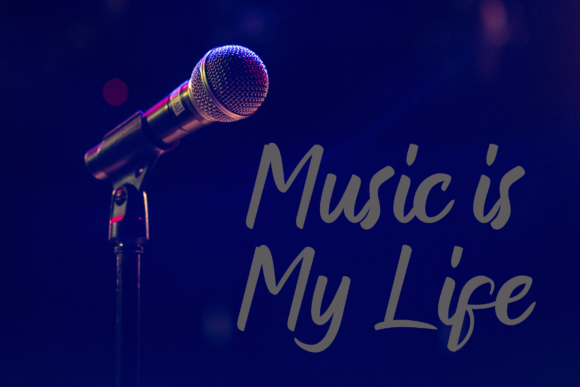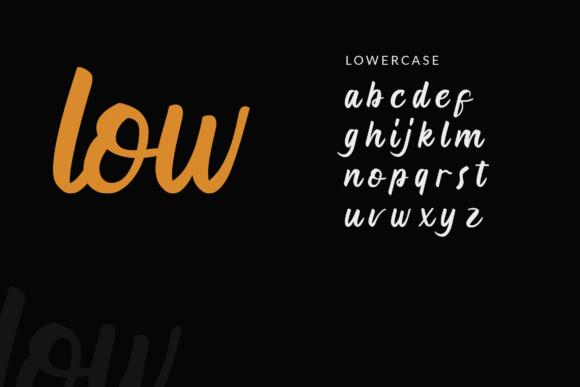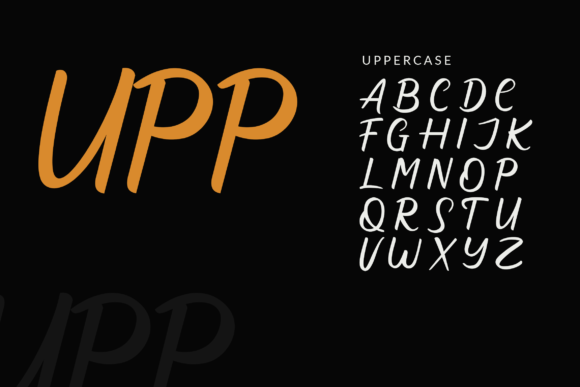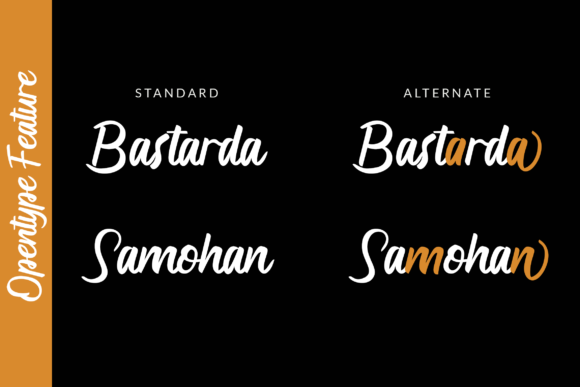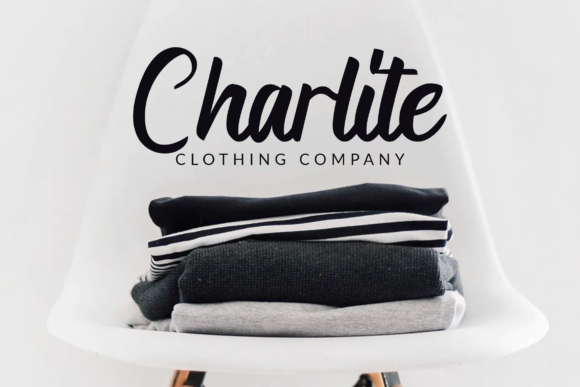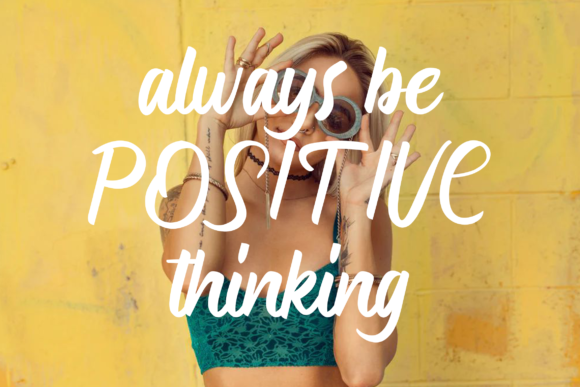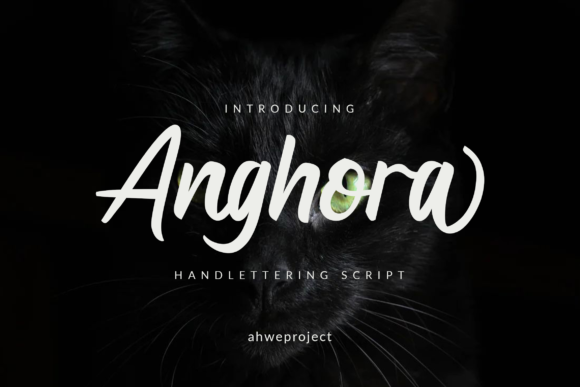
The Anghora Font: A Classy and Fancy Dry Brush Script with a Personal Feel
Have you ever been in the middle of a design project, and suddenly, you just can’t seem to find the right font? I recall a particularly frustrating experience when a client asked for a “classy and fancy” script font for their luxury brand’s packaging. I scoured the internet, tried out dozens of fonts, but nothing seemed quite right. That was until I stumbled upon the Anghora font. Its unique charm and personal feel instantly won me over, and I’ve been hooked ever since.
An Honest Review of Anghora Font
What I Love About Anghora Font
- ✨ Unique dry brush script style that’s both classy and fancy
- 💫 Beautifully crafted with a personal feel that adds a touch of elegance to any design
- 🎨 Versatile and can be used for a wide range of design projects, from packaging to branding and advertising
While Anghora font is an excellent choice for many design projects, there are a few quirks to be aware of:
- 🤔 Some users may find the font a bit too ornate for very minimalist designs
- ⚠️ Not ideal for body text, as it’s best suited for headlines and titles
The Backstory of Anghora Font
According to its creators, Anghora font was inspired by the art of traditional dry brush calligraphy. The designers wanted to capture the essence of this ancient art form and bring it into the modern era. The result is a font that’s both elegant and personal, perfect for designers looking to add a touch of sophistication to their work.
Q: What type of designs is Anghora font best suited for?
A: Anghora font is ideal for designs that require a touch of elegance and sophistication, such as luxury branding, packaging, and advertising.
Q: Does Anghora font come with OpenType features?
A: Yes, Anghora font comes with a range of OpenType features, including ligatures, stylistic alternates, and glyphs.